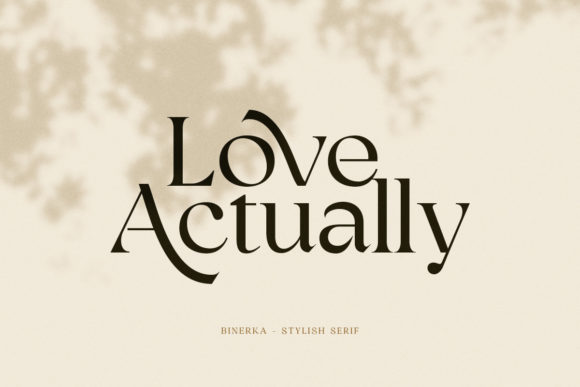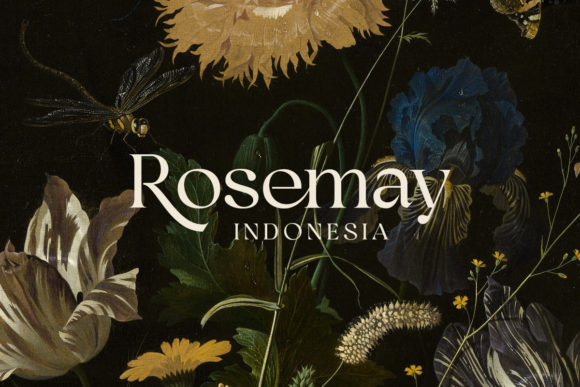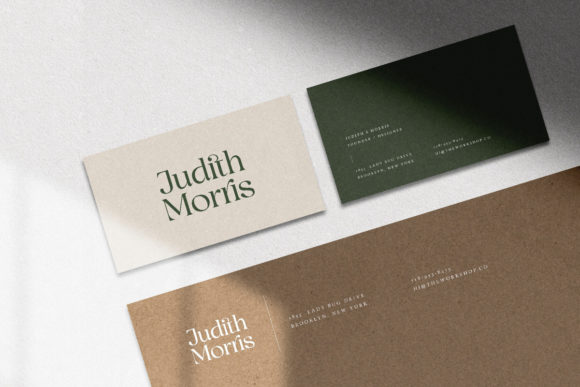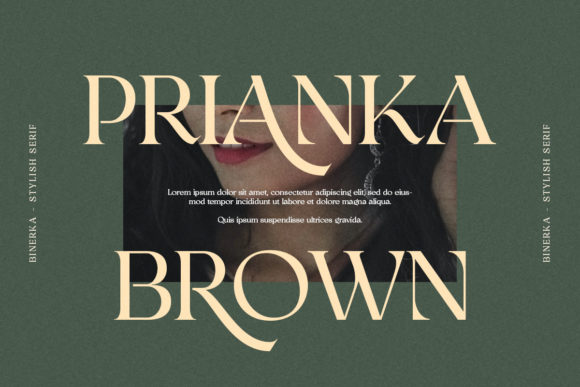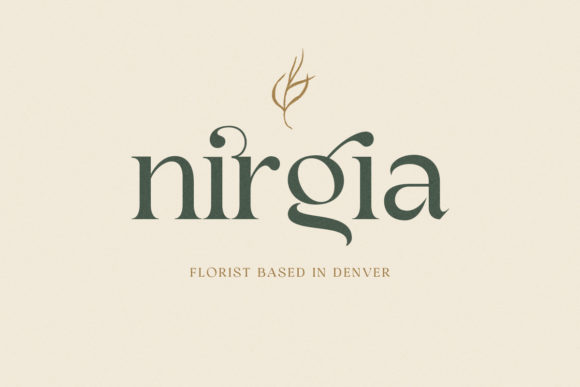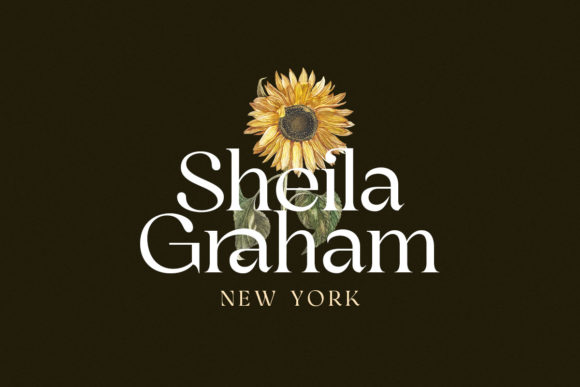
Introduction to Binerka Font
Have you ever been stuck on a creative project, searching for the perfect font to bring your vision to life? I know I have. Remember that moment when you finally stumbled upon the perfect typography, and everything just clicked? That’s exactly what happened when I discovered the stunning Binerka Font. This beautiful serif font is a game-changer for designers looking to add a touch of elegance and sophistication to their designs.
Key Features of Binerka Font
- Unique and Creative Design: Binerka Font is a high-quality design resource perfect for creative projects that require a touch of elegance and sophistication.
Honest Review: Binerka Font
I recently came across the Binerka Font while searching for design resources for a creative project. I was drawn to its unique, modern style and decided to give it a try. Here’s my honest review.
- The Binerka Font has a high quality, professional look that’s perfect for any design project.
- The font is highly customizable, with a range of weights and styles to choose from.
- The Binerka Font may not be suitable for very small text sizes, as the lines can become blurry.
Overall, I’m really impressed with the Binerka Font. It’s a great addition to any designer’s toolkit, and its high quality and versatility make it a valuable resource for any creative project. While it may have some limitations, I think it’s definitely worth checking out.
The Binerka Font is suitable for a wide range of design projects, including logos, typography, graphics, posters, social media content, presentations, and documents.